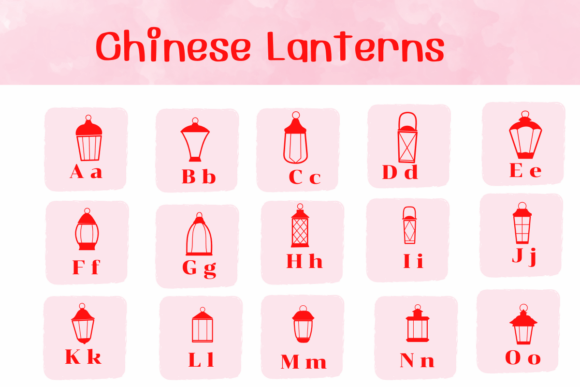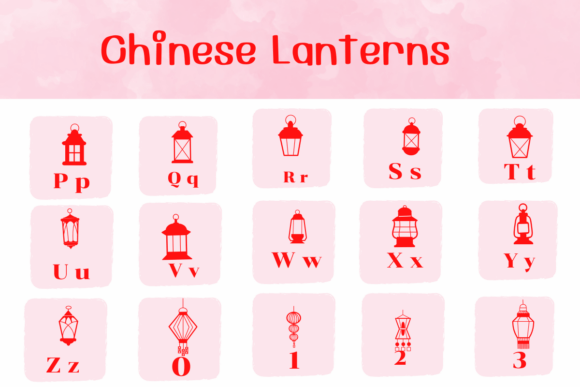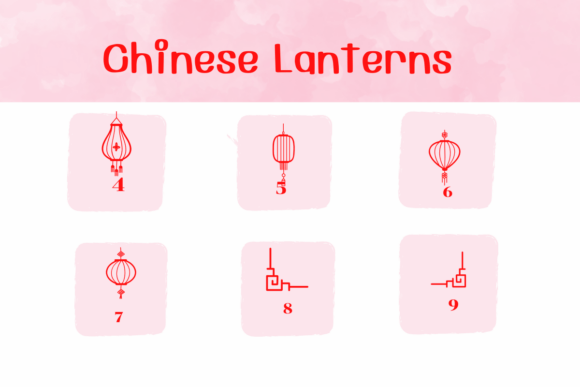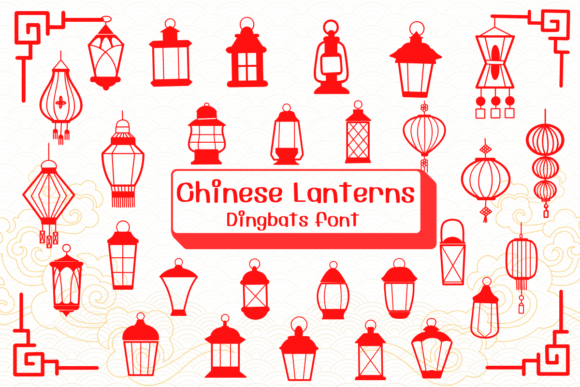
Introduction to Chinese Lanterns Font
The β€œChinese Lanterns” dingbat font features a variety of traditional Chinese lantern designs.
It includes different styles and shapes of lanterns, perfect for adding a cultural touch to any project Each character in the font represents a unique lantern, making it easy to decorate with beautiful, festive symbols.